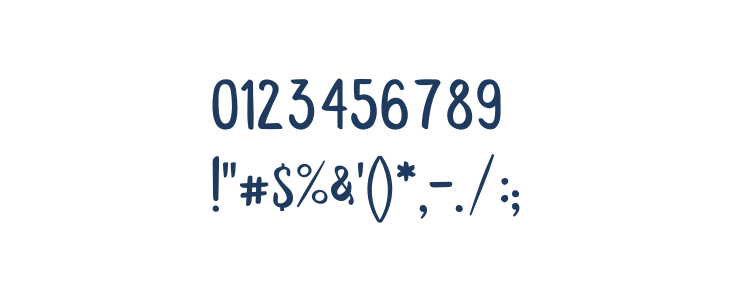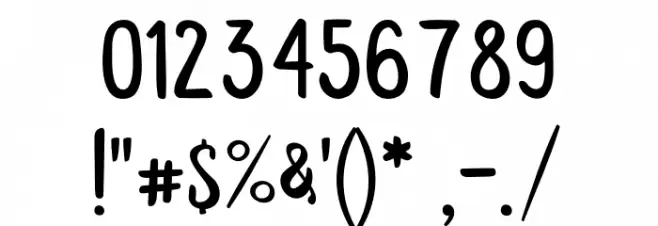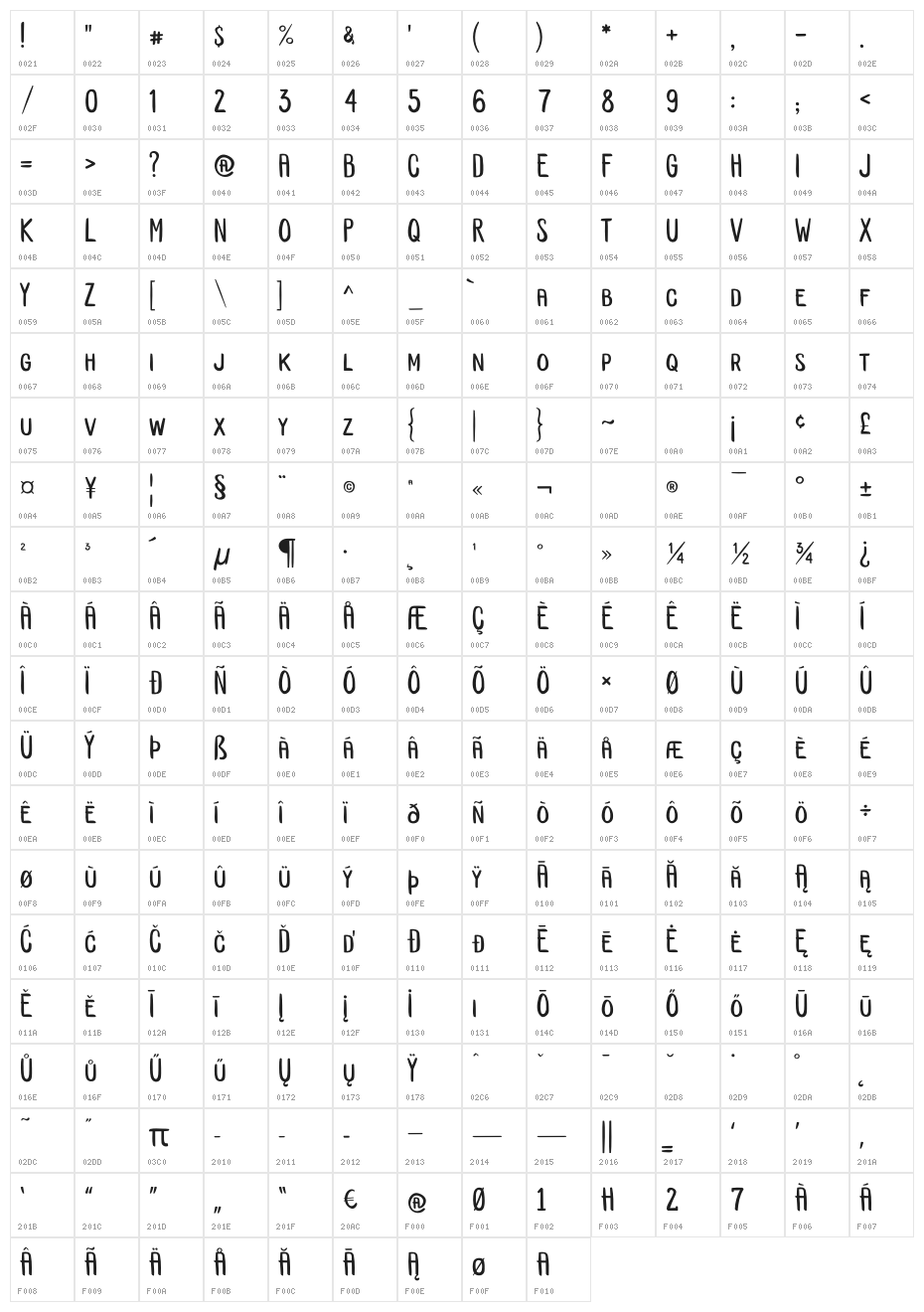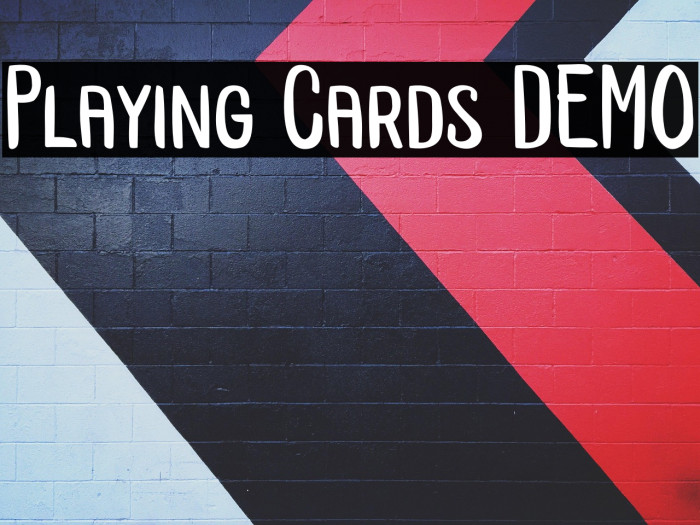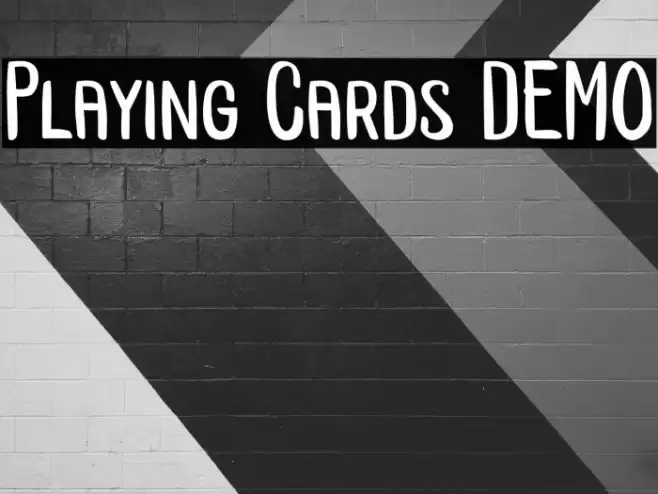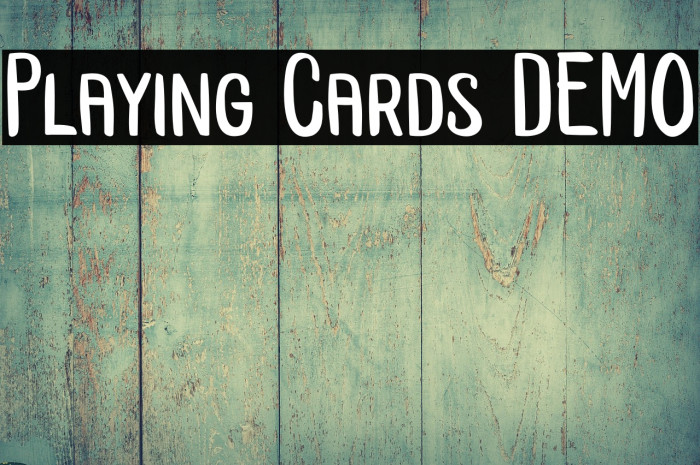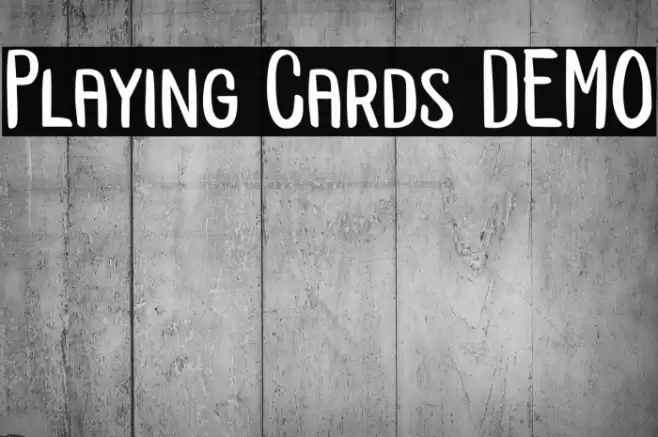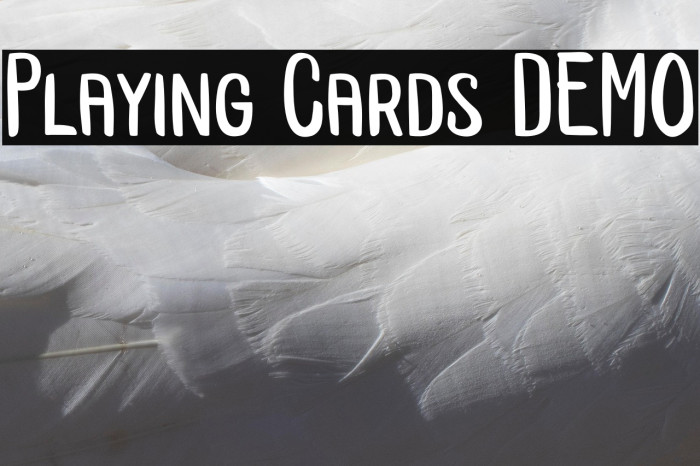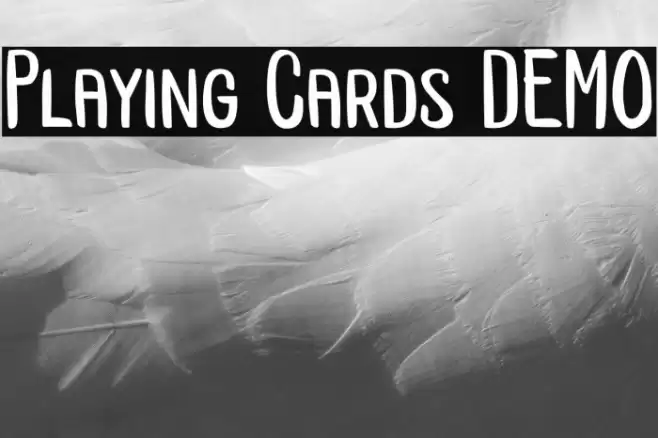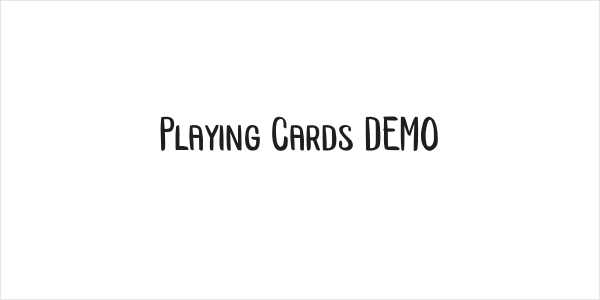
Playing Cards DEMO Font
Playing Cards DEMO Description
This font features a playful and informal style with rounded edges and a hand-drawn appearance. The uppercase and lowercase letters maintain a consistent height, contributing to its cohesive look. The numbers and special characters are designed to match the overall aesthetic, making it suitable for creative and casual projects. The strokes are uniform, providing a balanced and approachable feel. This font is ideal for projects that require a friendly and inviting tone, such as children's books, greeting cards, or playful branding.
| Proposed Projects | Children's books, greeting cards, playful branding, casual invitations. |